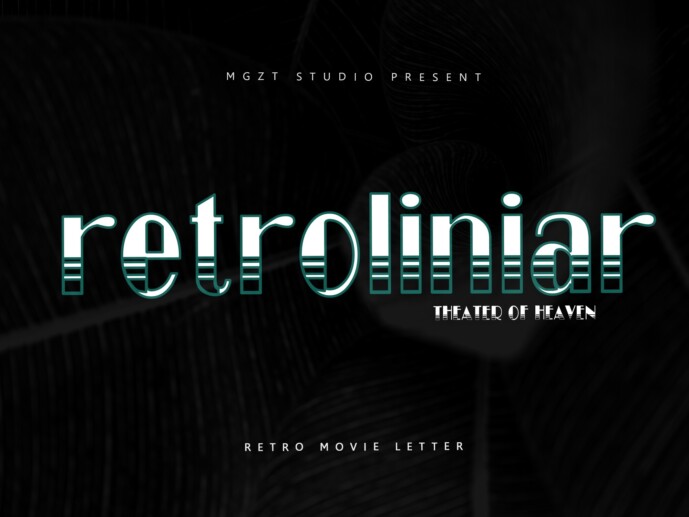
Retroliniar Font
Designer: Magizta Craft
Retroliniar is a bold and stylish retro serif font that captures the glamorous spirit of vintage theaters and cinematic nostalgia. Featuring striped horizontal lines that cut through tall, geometric letterforms, Retroliniar channels a sleek Art Deco vibe with a modern twist.
Each character combines structured elegance with playful retro aesthetics, making it ideal for posters, headlines, movie titles, and vintage branding.